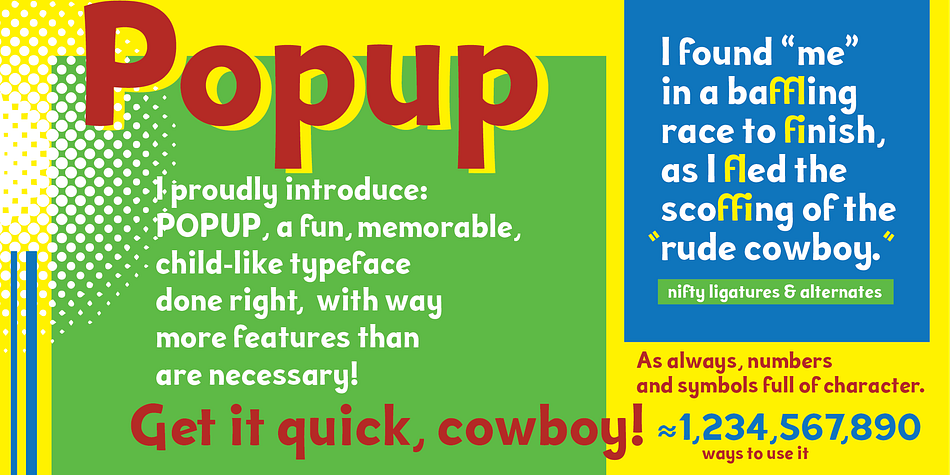
Popup
Popup is a hand display and sans serif font family published by Interrobang Type.
Popup is a fun, child-like typeface done right, with way more features than necessary! It is inspired by a small word mark found in a Space Cowboy popup book, as evidenced by the corresponding imagery. It was designed to work well as both a display face and, when sizes don’t need to be tiny, as body text for a playful character.